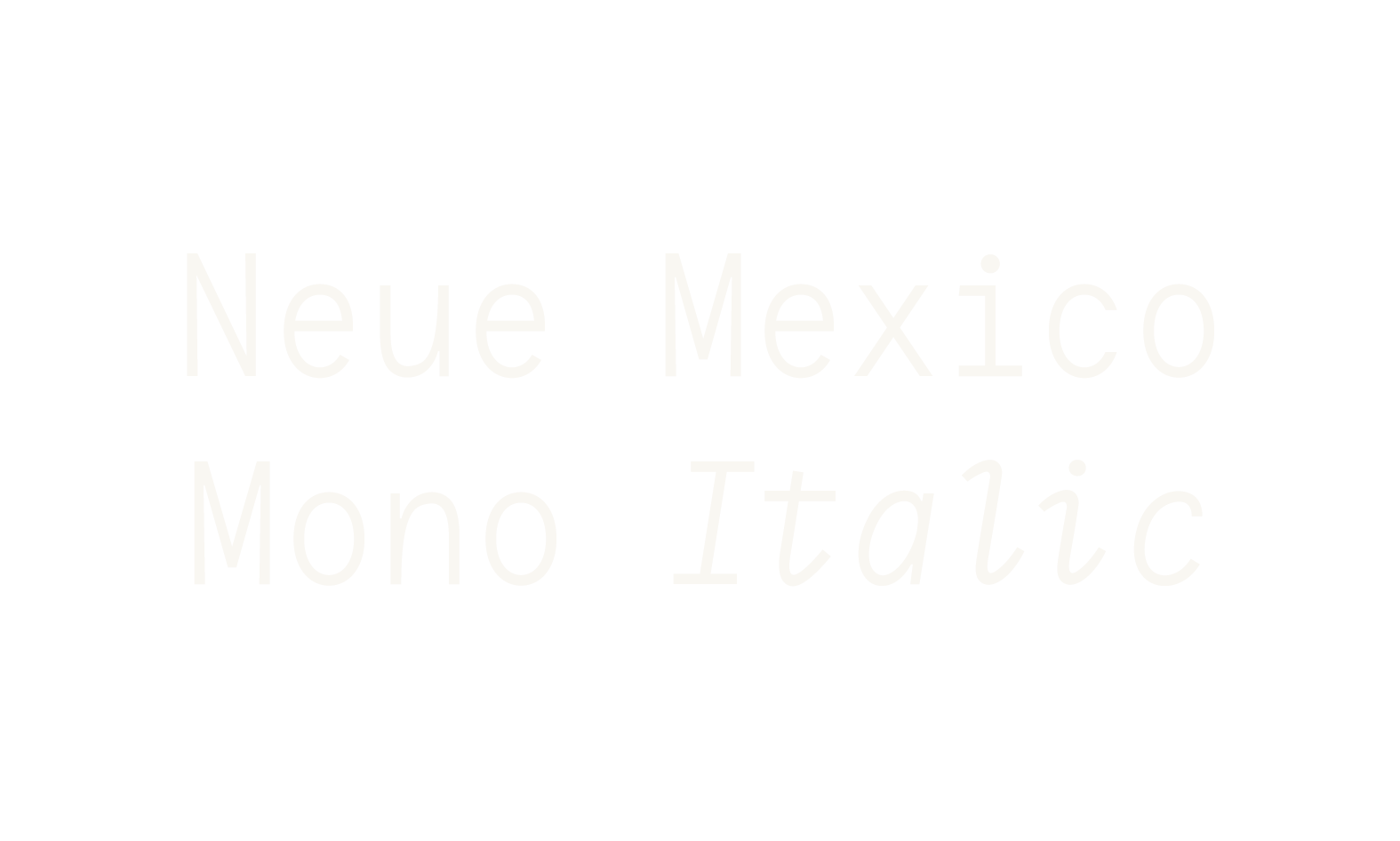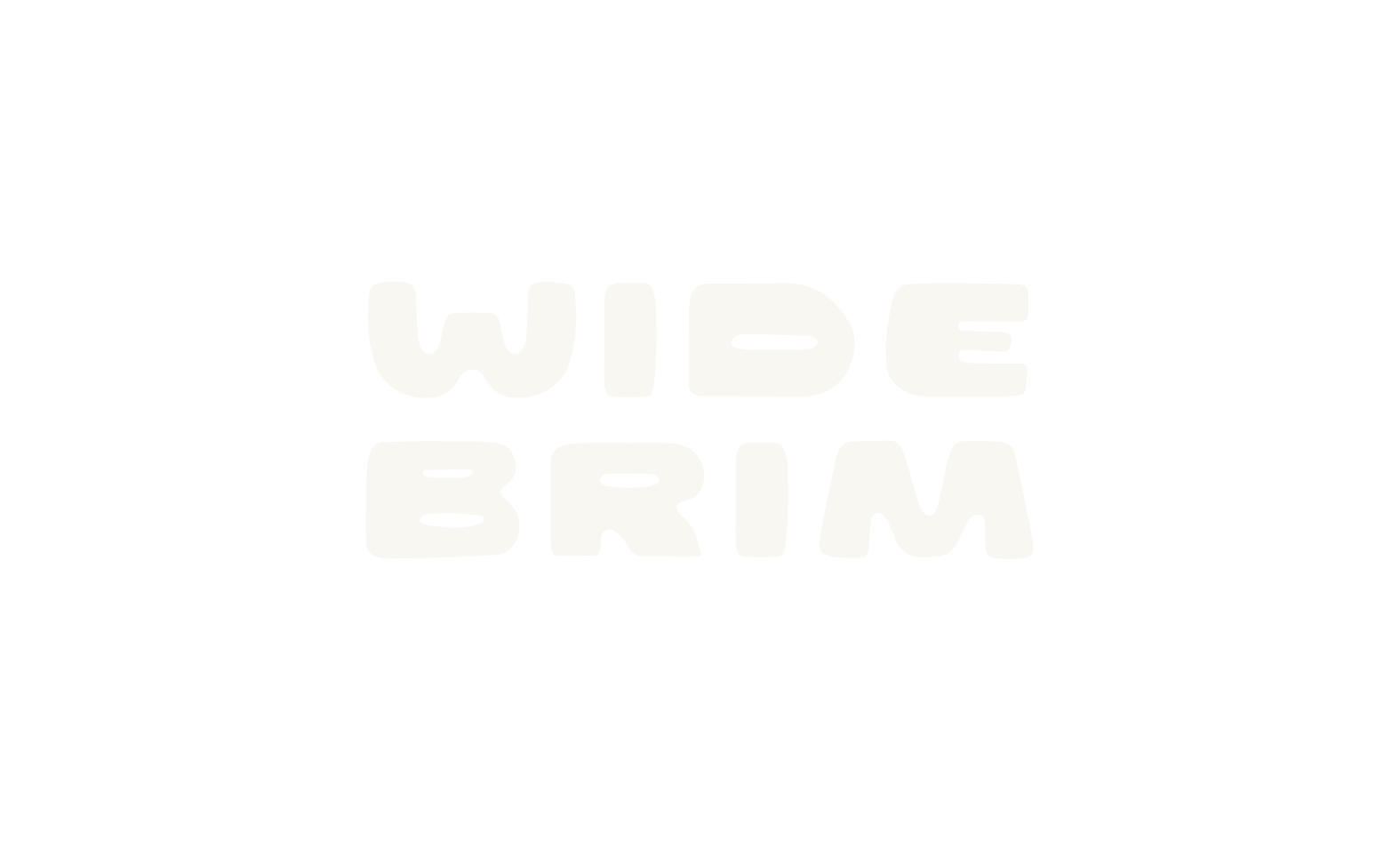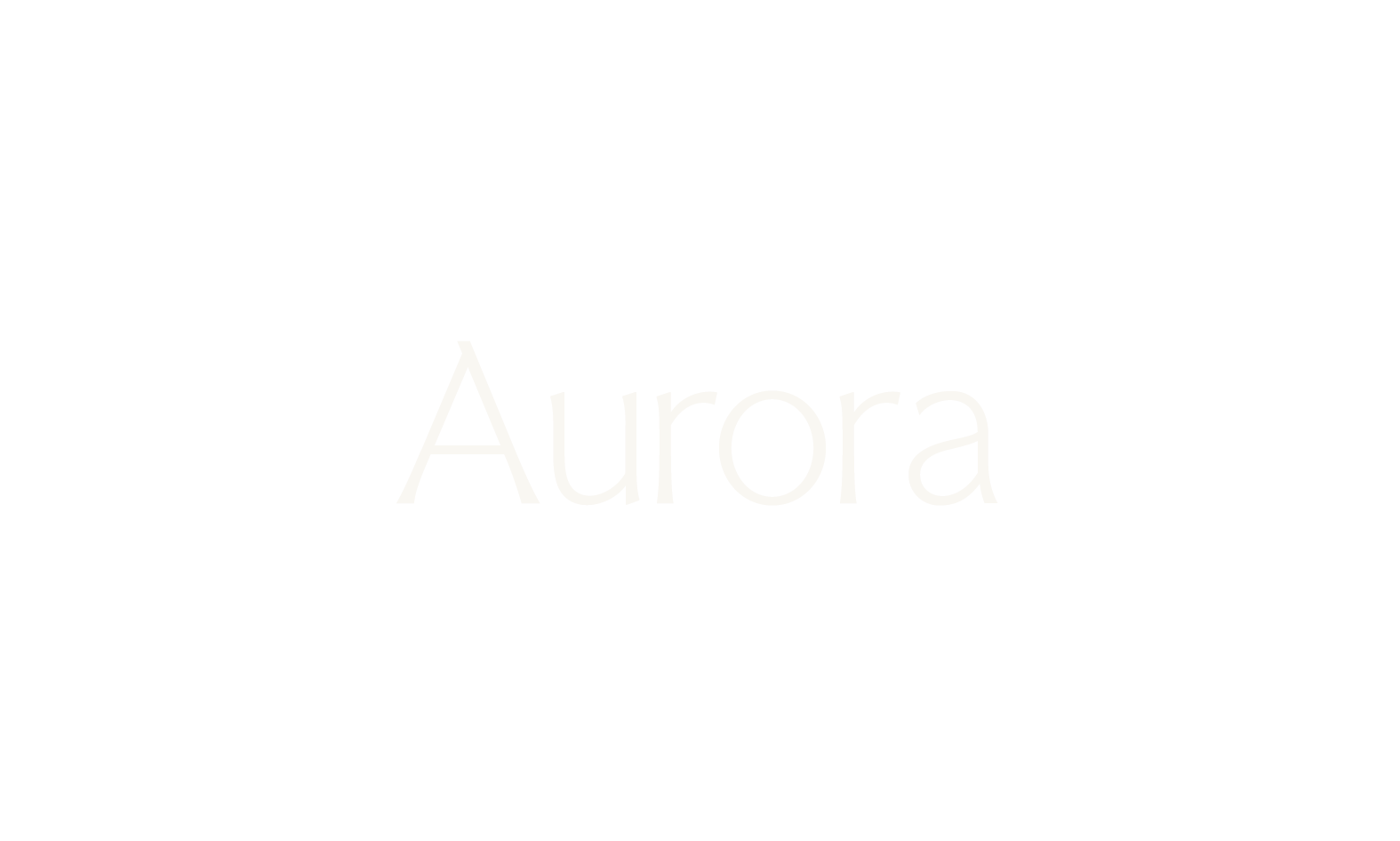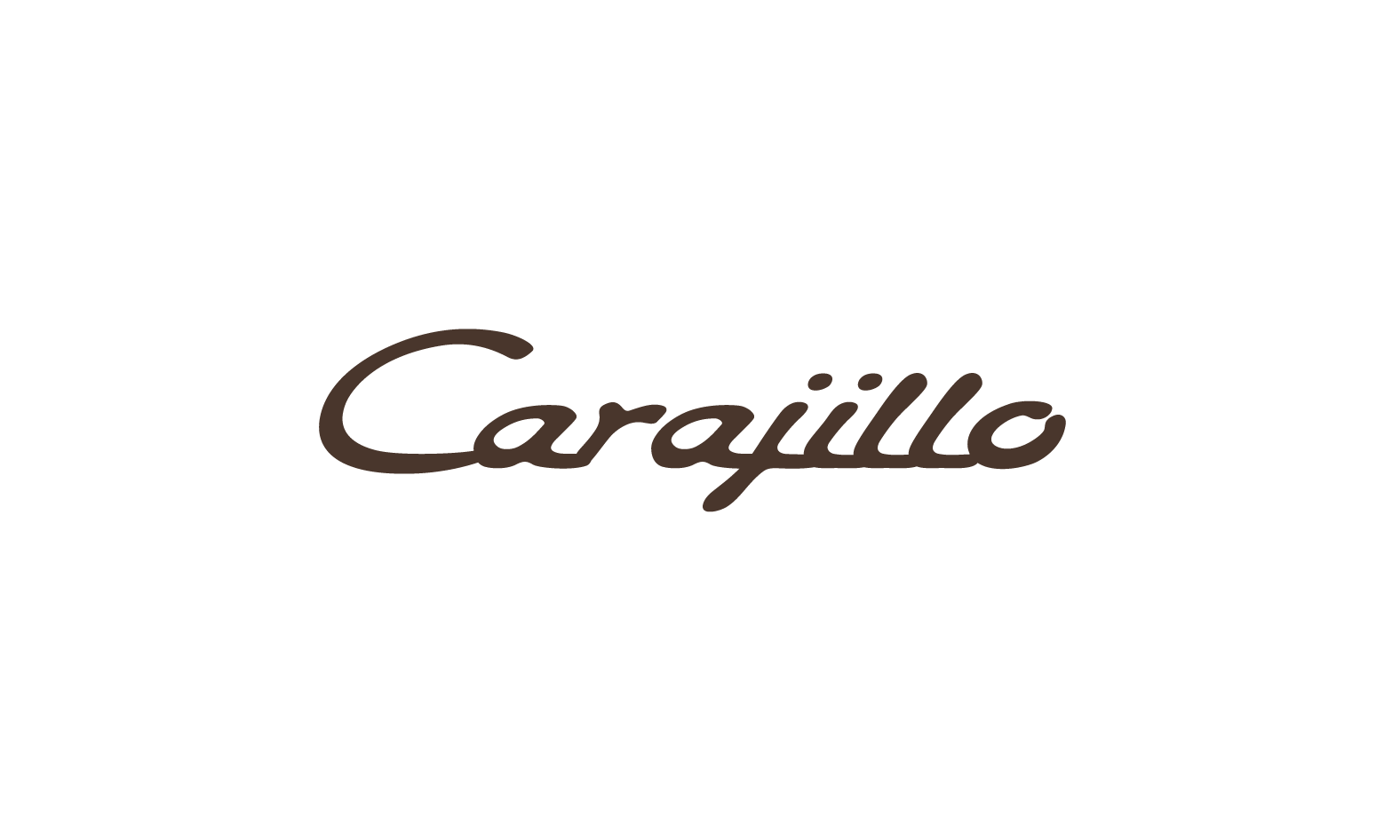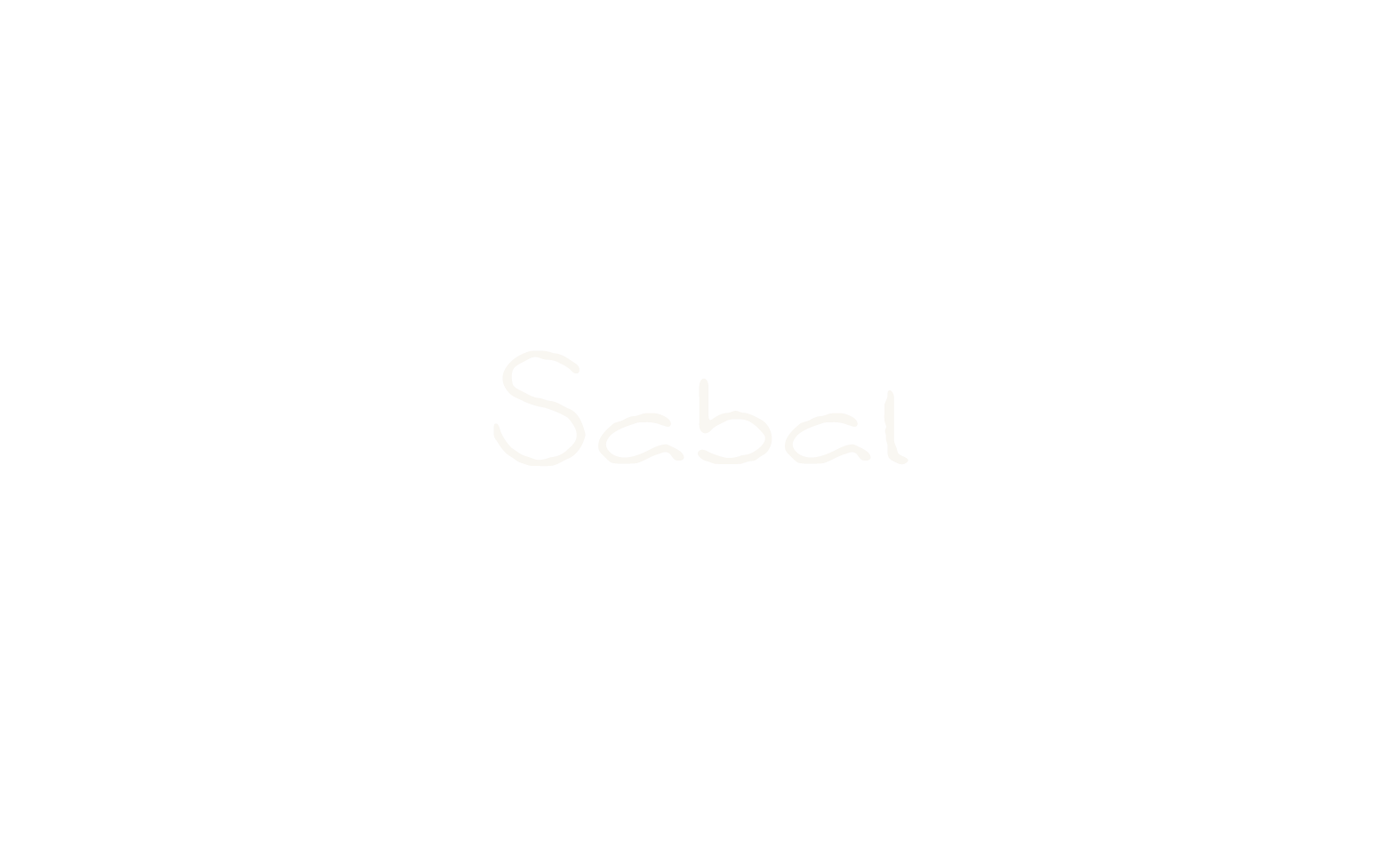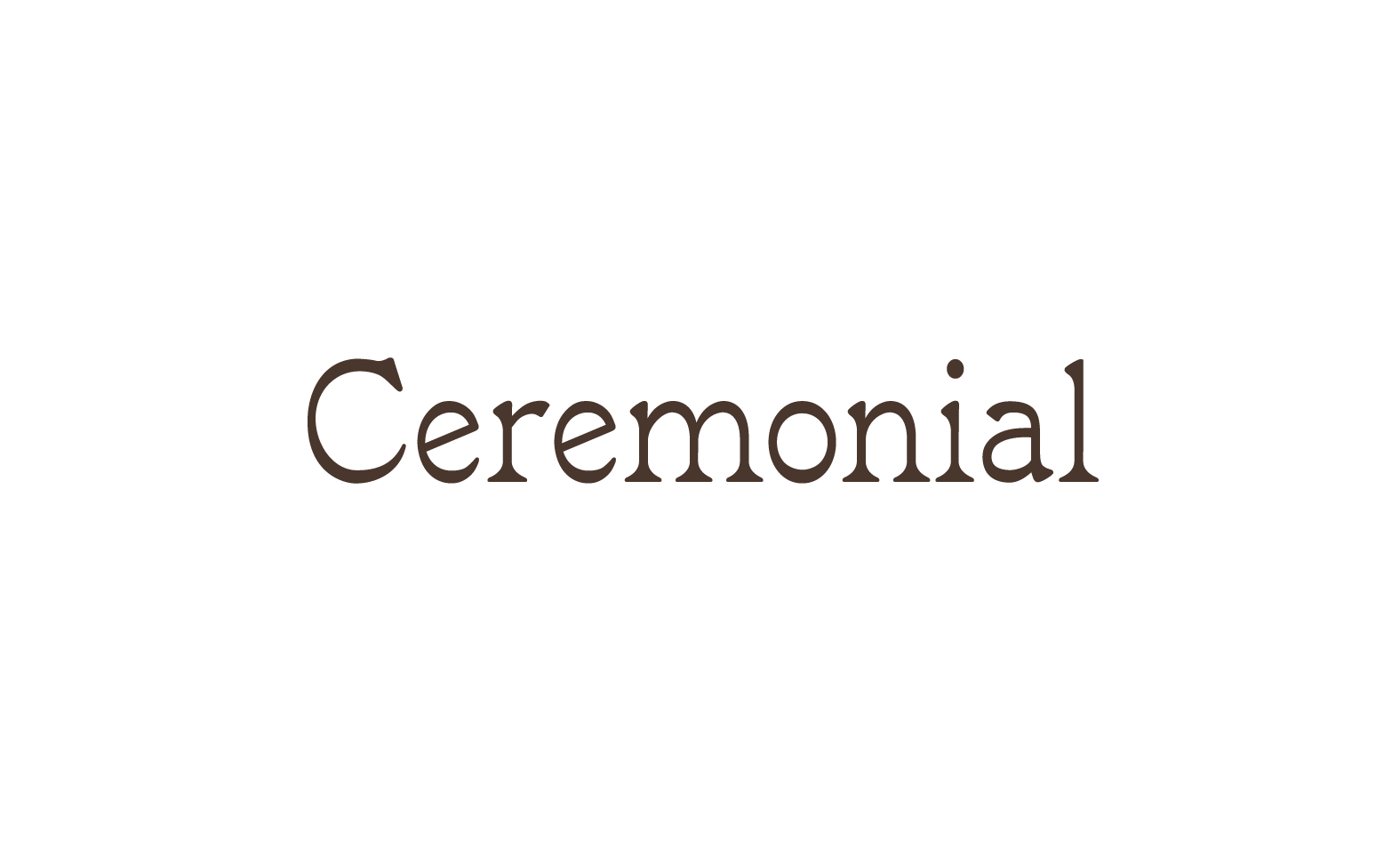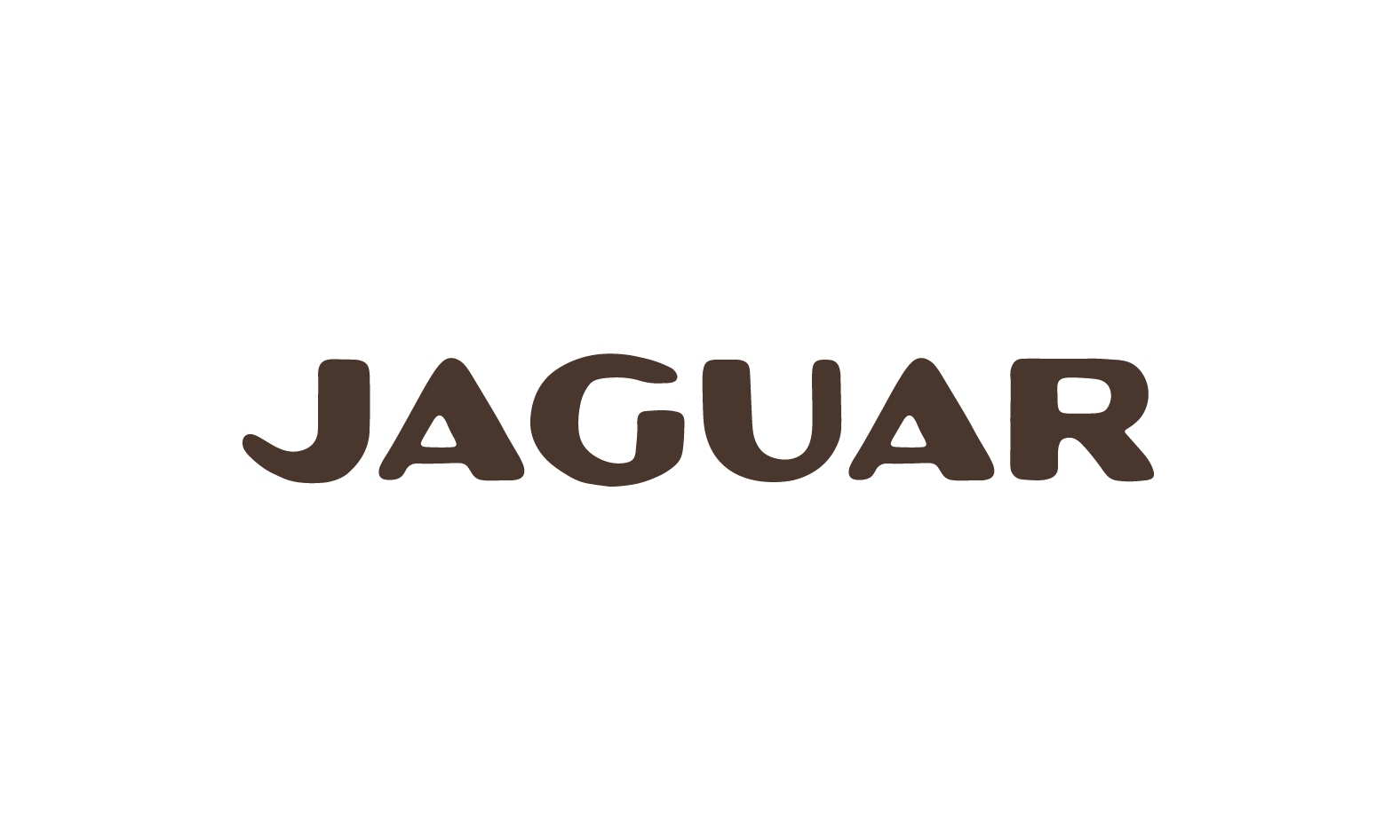
Modern & earthy fonts with character
Made by hand. Made for storytelling.
In 2021 I made my first font and it spurred an obsession with the artistry and puzzle-solving that comes with designing type faces. You can find more via my foundry, Heatwave.